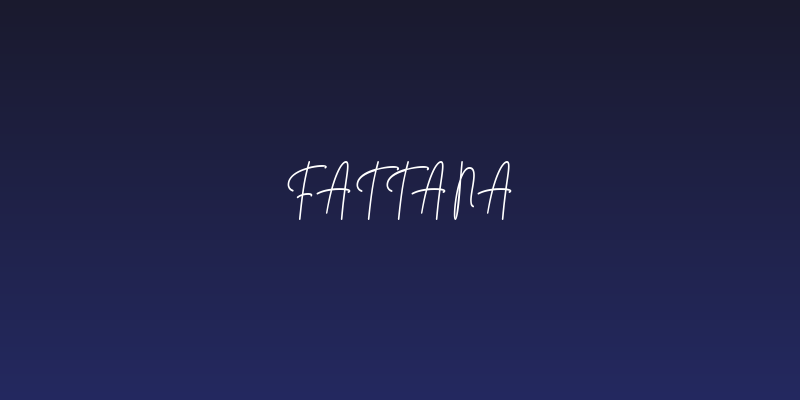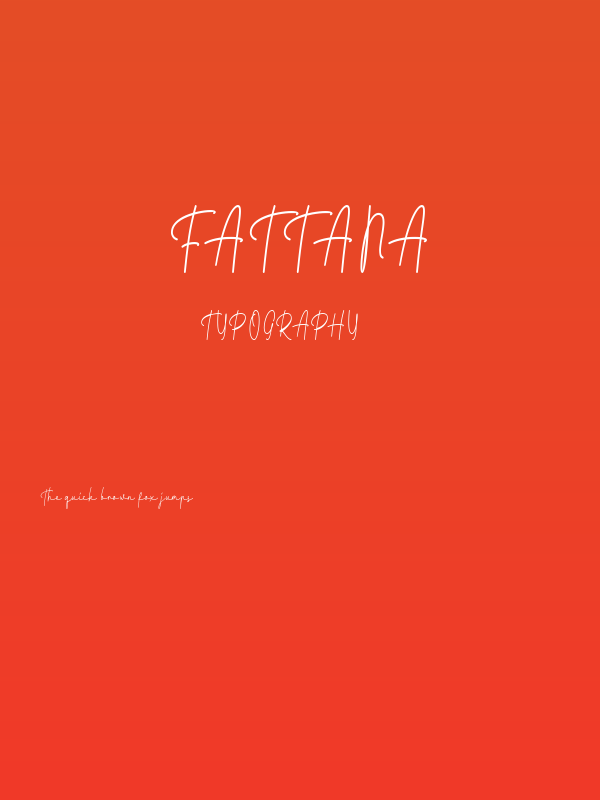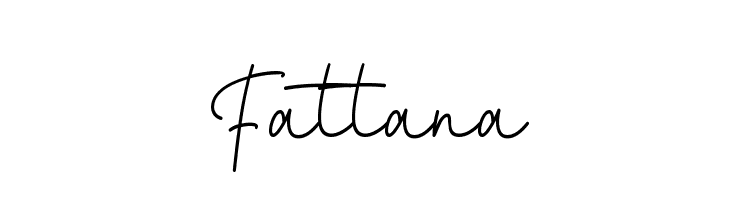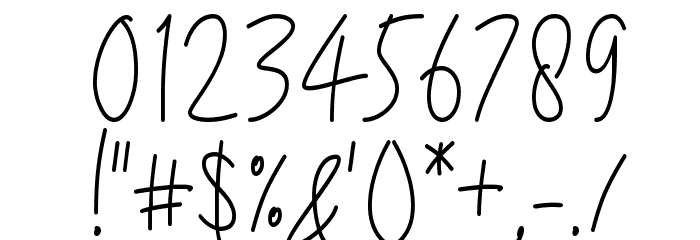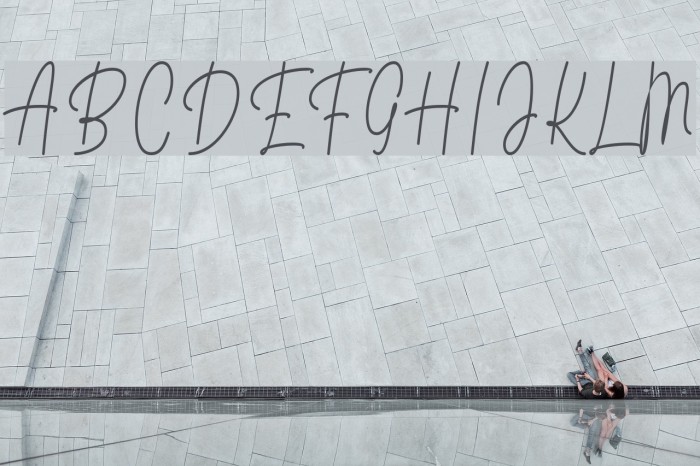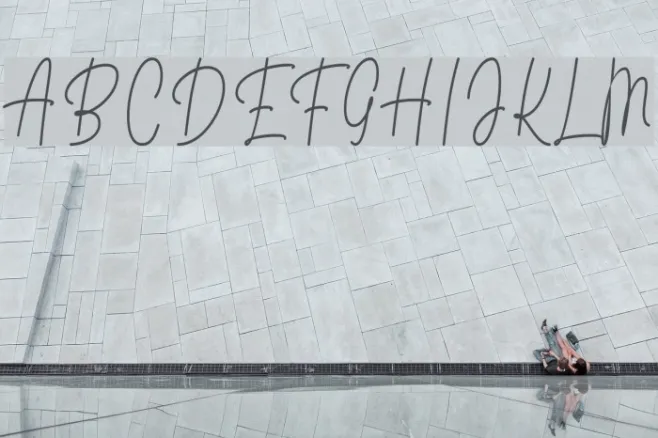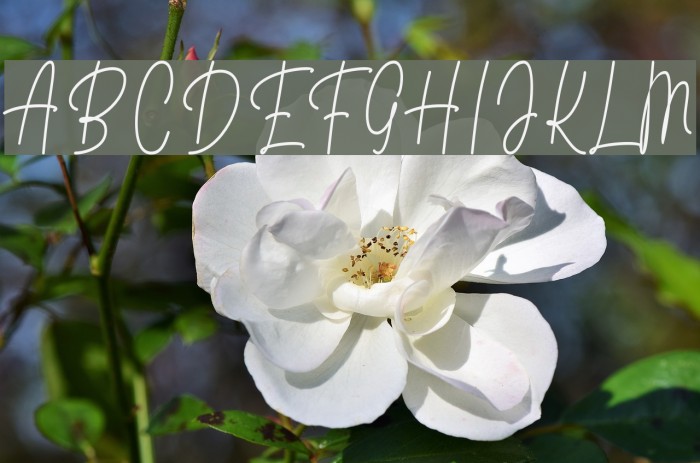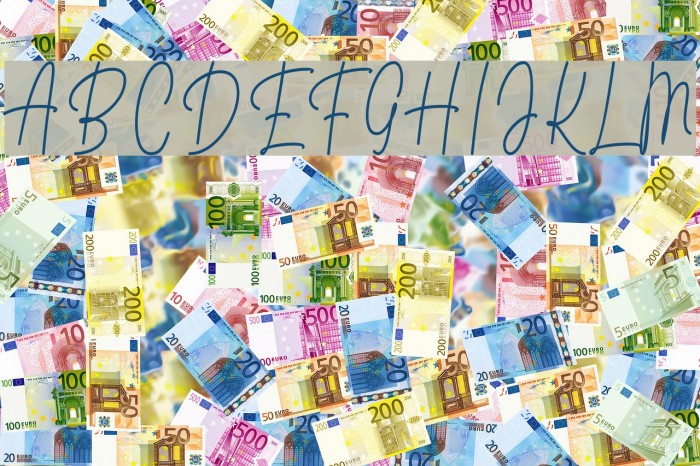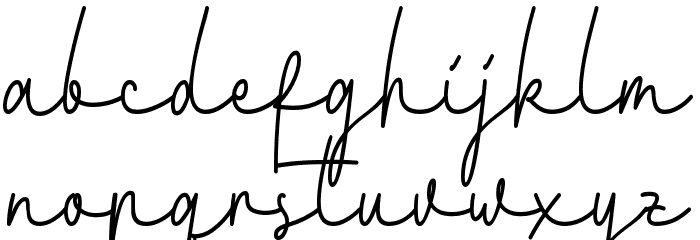
Fattana Font
Fattana Description
This font features a handwritten, cursive style with a playful and casual appearance. The letters are connected in a fluid manner, giving it a natural and organic feel. The uppercase letters are slightly taller and more elongated, while the lowercase letters maintain a consistent flow. The numbers are clear and easy to read, matching the overall style of the alphabet. Special characters are included, maintaining the same handwritten aesthetic. The strokes are consistent in width, providing a harmonious look across all characters.
| Use Case | Logos, Invitations, Social Media |
| Proposed Projects | Ideal for personal invitations, greeting cards, casual branding, and social media graphics. |